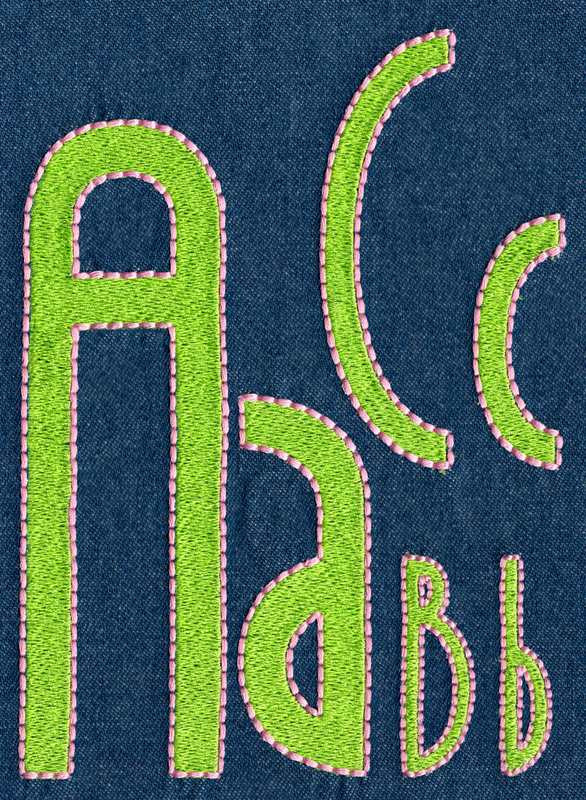
524 November Sky Fill & Floss Font
November Sky Fill & Floss Font comes in 2", 3", 4", 5" and 6" heights based on the capital "A". All sizes included in purchase price, includes uppercase letters, lowercase letters, numbers and four punctuation marks. All sizes are finished in fill stitch with Floss Stitch outlines as a two-color set up; Floss Stitch stitches out on all embroidery machines using standard embroidery thread.